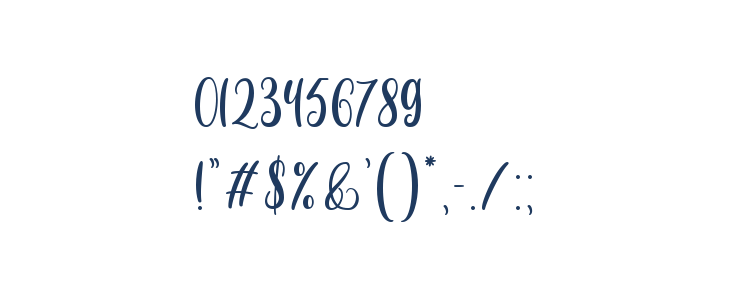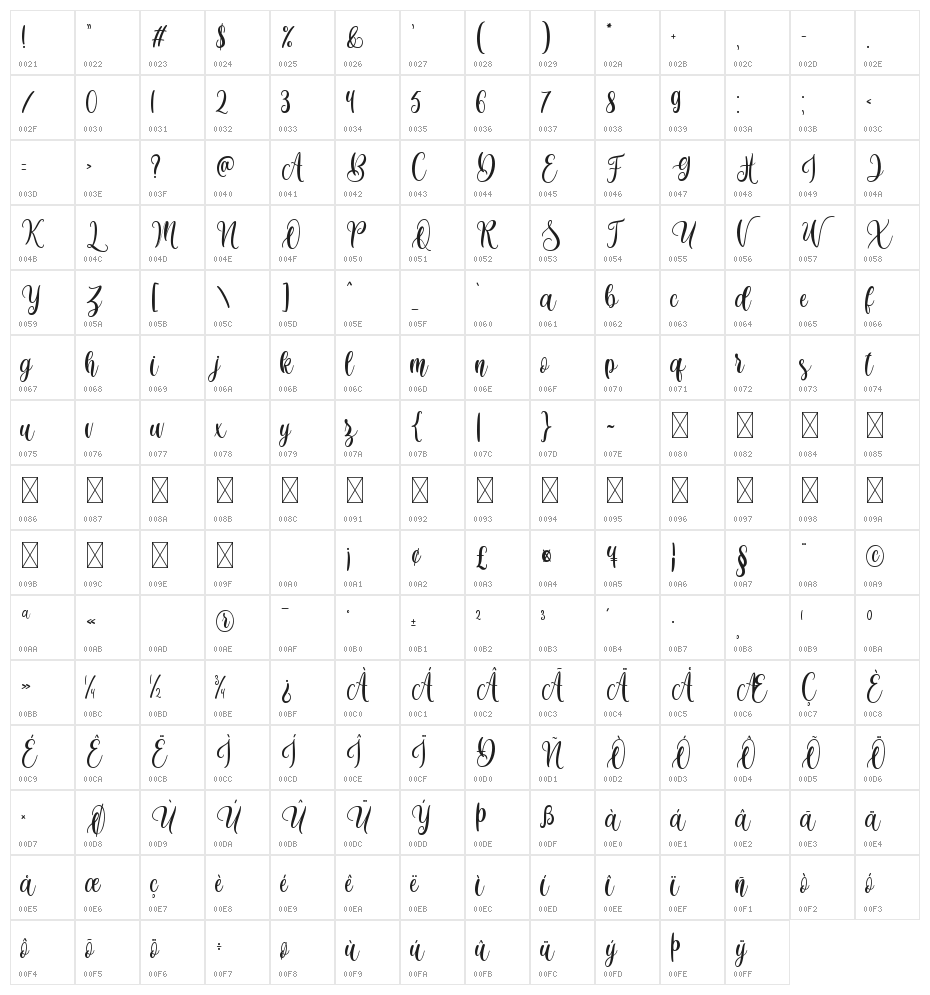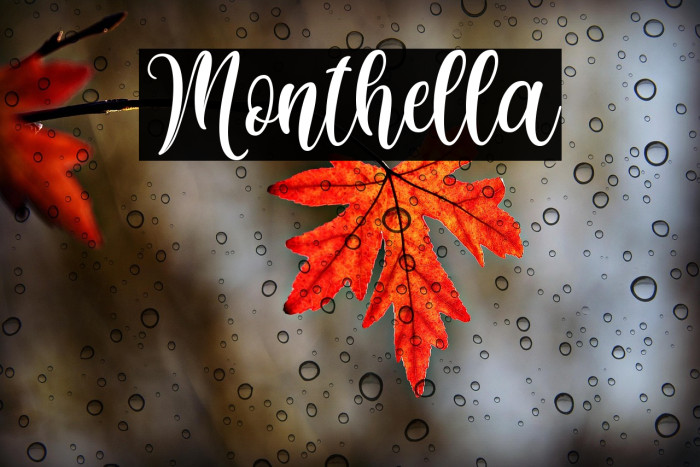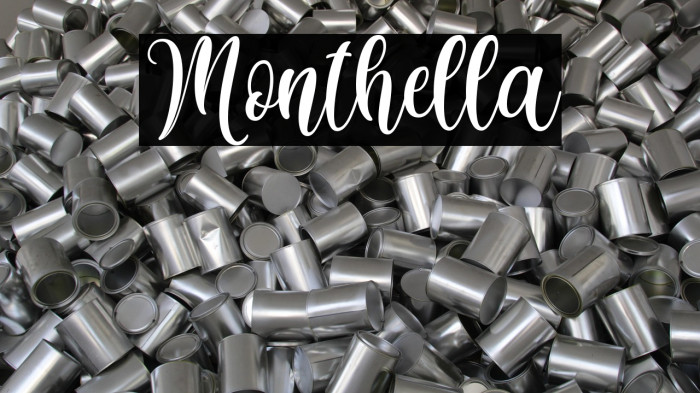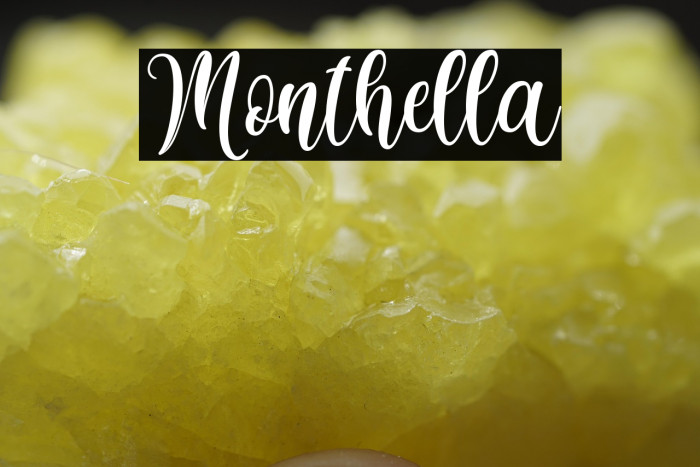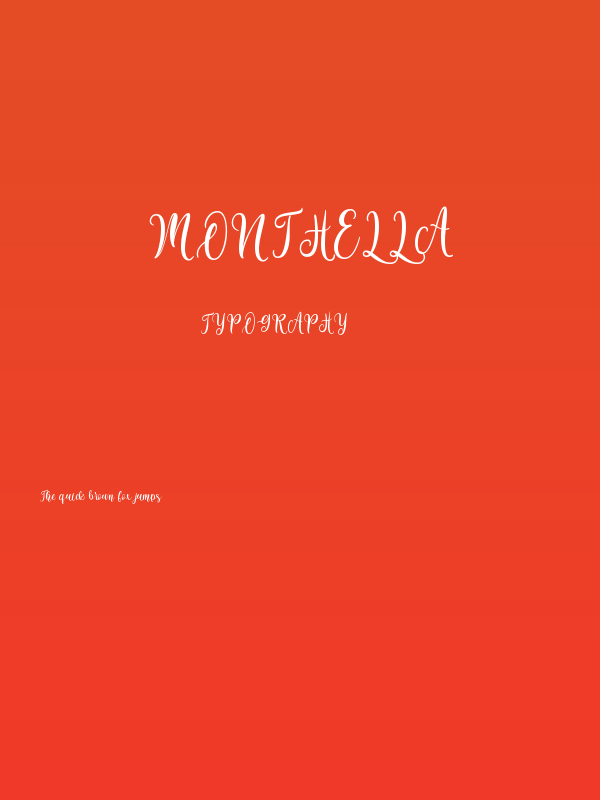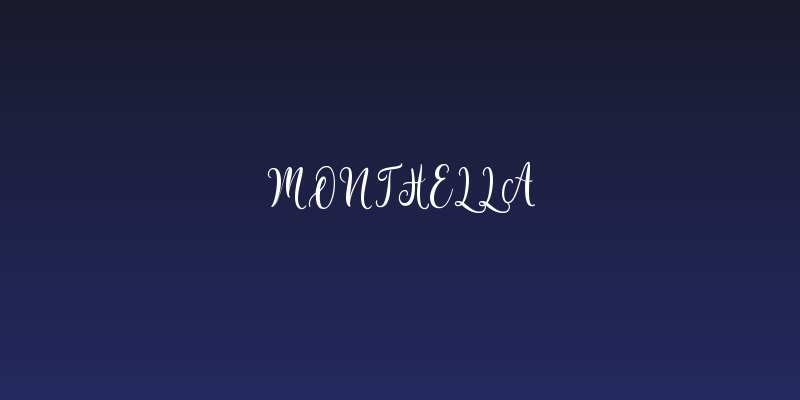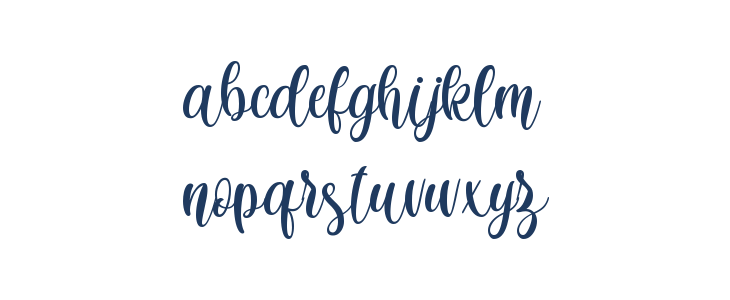
Monthella Font
Monthella Description
This font showcases a flowing, cursive style with elegant loops and swashes, giving it a handwritten appearance. The uppercase letters are particularly ornate, featuring intricate curves and flourishes that add a touch of sophistication. The lowercase letters maintain a consistent style, with smooth connections between characters, enhancing the script's fluidity. The numerals and special characters are designed to match the overall aesthetic, ensuring a cohesive look across all text elements. This font's graceful and artistic nature makes it ideal for creative projects that require a personal touch.